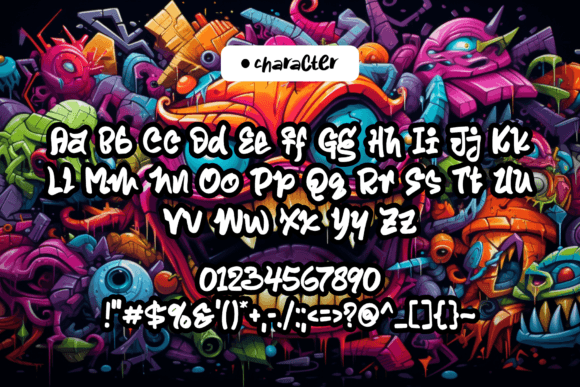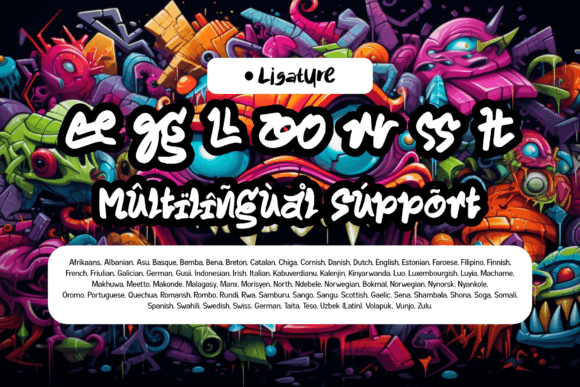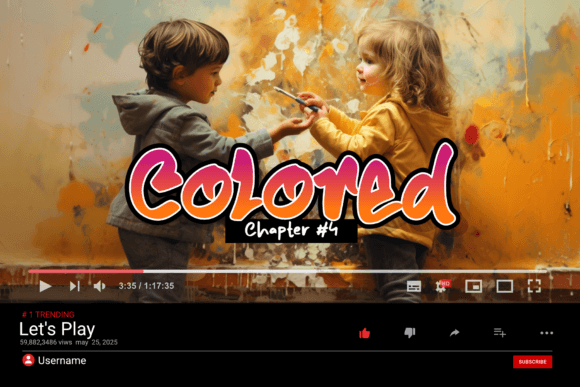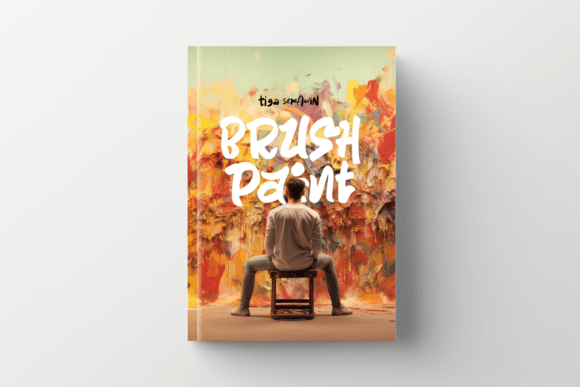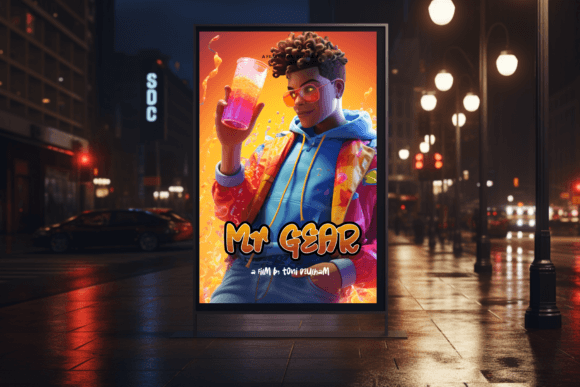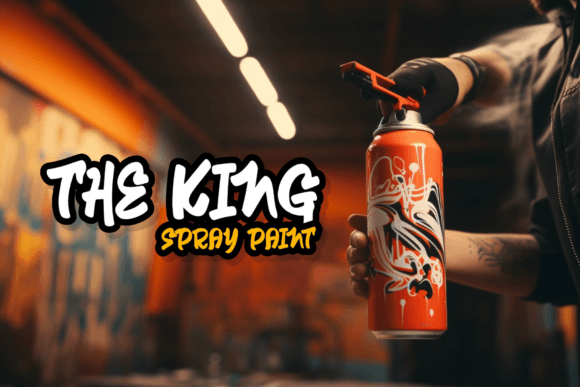
Introduction to Ragzilla Font
Ragzilla is a bold font with a thick brush style inspired by graffiti art.
Combining the daring and energy of street graffiti, this font creates a striking and expressive look for eye-catching display designs With a strong brush and sharp lines, Ragzilla produces a bold effect that exudes strength and prominence.
Key Features of Ragzilla Font
Why Choose Ragzilla Font?